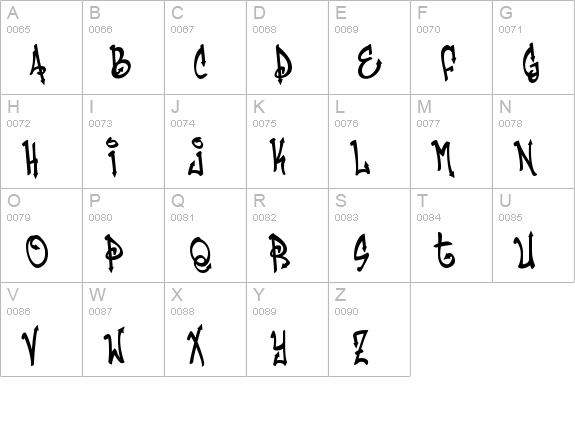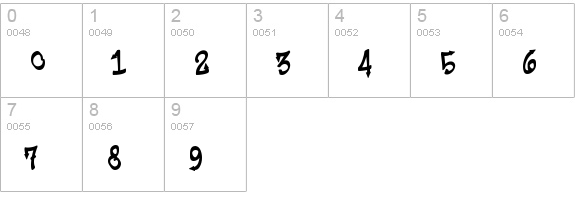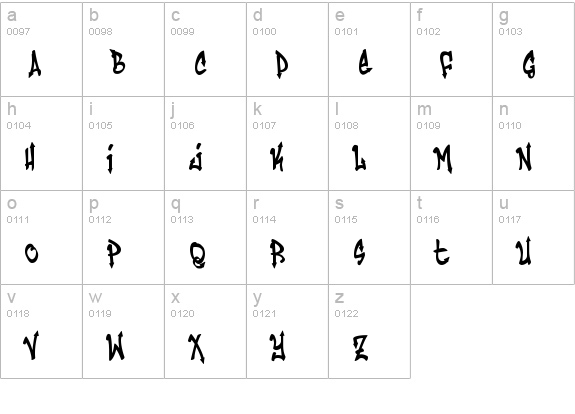
Humbucker Nasty Font Details
Humbucker Nasty font is a bold and edgy typeface that exudes a rebellious and rock 'n' roll vibe. With its sharp angles and distinctive letter shapes, this font is perfect for projects that require a touch of attitude and grit. The letters are designed with a rough and jagged appearance, giving the text a raw and untamed feel. What sets Humbucker Nasty font apart is that it is available for free download at FontsMarket.com. This means that you can easily access this unique font and use it in your designs without any cost. Whether you're creating posters, album covers, or branding materials, Humbucker Nasty font is sure to make a bold statement and leave a lasting impression. Download it today and add a touch of rebellious energy to your projects!